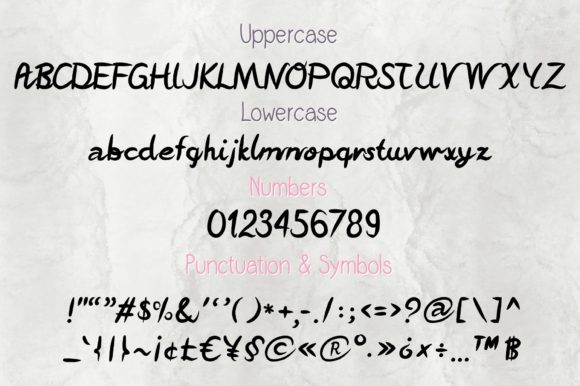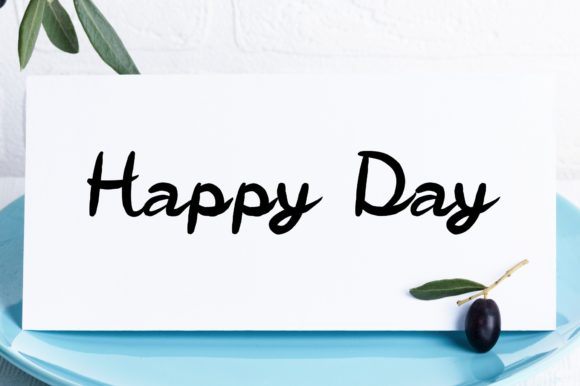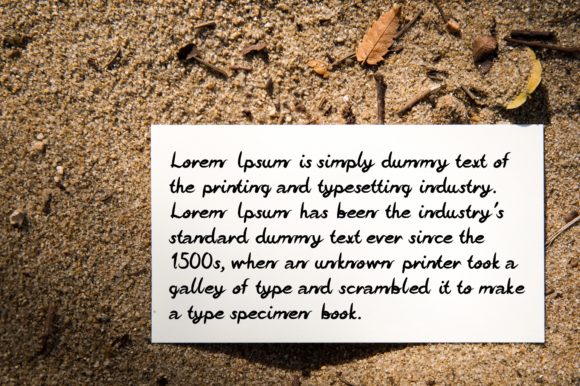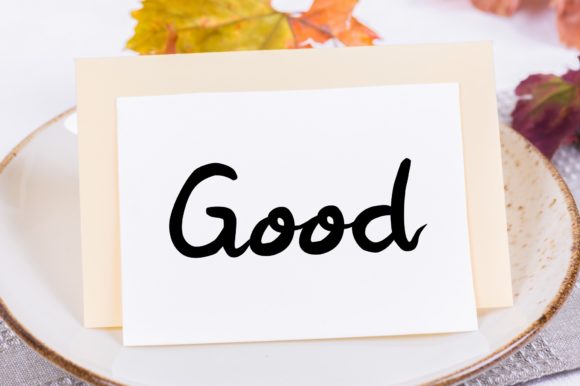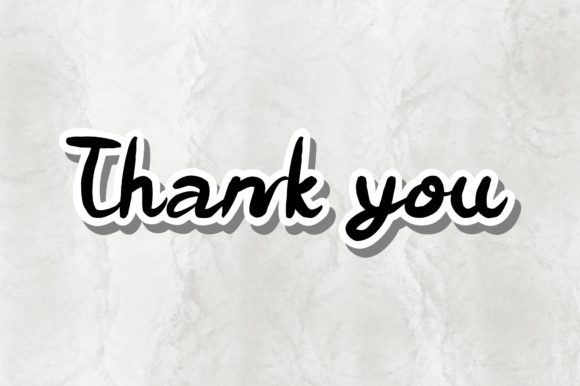
Introduction to Ramutan Font
Remember the moment when you finally find the perfect font for your design project? The one that makes your work stand out and leaves a lasting impression? For many designers, that moment is just around the corner, thanks to the stunning Ramutan Font.
This beautiful cursive script font has been gaining popularity among designers due to its stylish vibe and versatility. Whether you’re working on a logo, brochure, or social media graphic, the Ramutan Font is an excellent choice. Its high-quality design makes it a valuable resource for any creative project, and the best part? It’s available for free download, making it accessible to designers of all levels.
With its transparent background and elegant lines, the Ramutan Font is sure to elevate your designs and take them to the next level. In this article, we’ll dive deeper into the world of Ramutan Font and explore its potential as a go-to design resource.
Key Features of Ramutan Font
- High-quality design resource with a unique and creative style, perfect for various projects.
- Transparent background, allowing for easy customization and integration into any design.
- Perfect for designers and artists working on creative projects, including graphics, logos, and typography.
Honest Review: Ramutan Font
As a designer, I’m always on the lookout for high-quality design resources that can elevate my creative projects. Recently, I stumbled upon the Ramutan Font, and I must say, it’s a great addition to any designer’s toolkit.
- High-quality font with a unique and modern design
- Transparent background, allowing for easy customization and use in various design contexts
- Works well in both digital and print designs, making it a versatile choice for creative projects
While the Ramutan Font is a great resource, it does have some limitations. The font family is relatively small, with only a few styles available. Additionally, the font may not be suitable for complex or detailed typography, as it can become difficult to read at smaller sizes.
In conclusion, the Ramutan Font is a solid choice for designers looking for a high-quality, free download font. While it has some limitations, its unique design and versatility make it a great addition to any design toolkit. I would recommend it for creative projects that require a modern and eye-catching font.
To get the most out of the Ramutan Font, use it in combination with other design elements to create a cohesive look. Experiment with different font sizes, colors, and styles to find the perfect combination for your creative project.
The Ramutan Font is perfect for use in various creative projects, including graphic design, digital art, and typography. It’s also great for use in presentations, reports, and other documents that require a unique and creative touch.